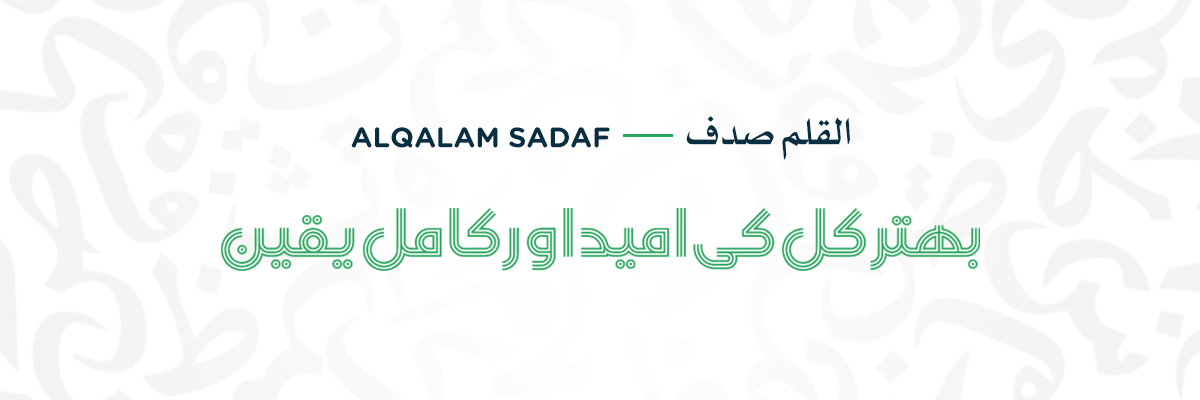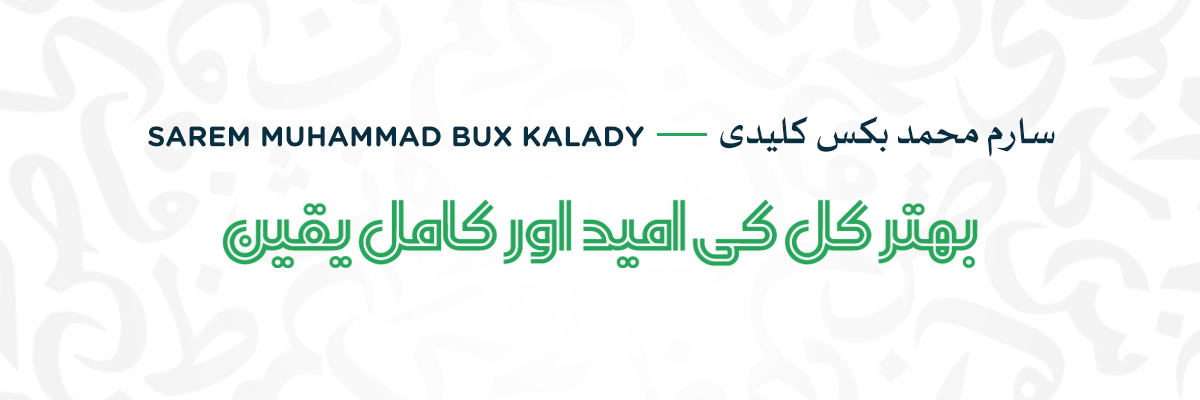
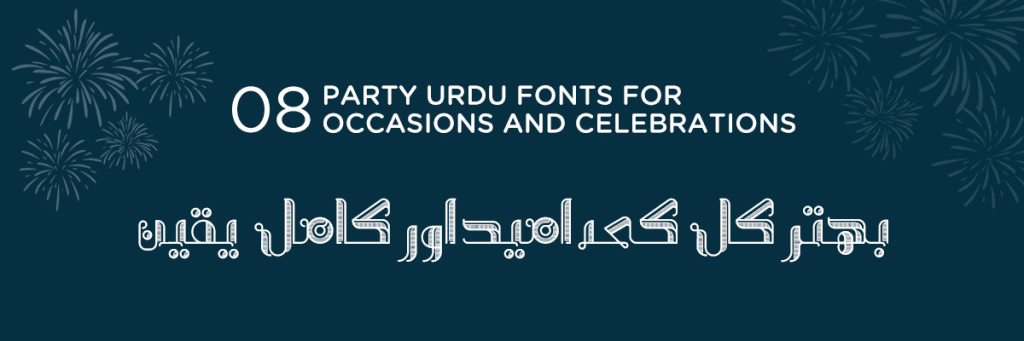
Isn’t it beautiful that just a slightest thing can change the overall look of your designing projects? For example, just by using the right Urdu fonts while designing invitation cards, occasions and celebrations, you can make it look elegant and amazing. For your special events invitation, party Urdu Fonts are the best option. These fonts have a decorative as well as cursive or curly pattern that add a modern and sophisticated touch. Furthermore, the main purpose of using these fonts is all about adding an amusing and festivity touch to your texts. They are often cartoonish or hand-written, with very bouncy characters as well as lively colors. That’s why they are best for kids’ birthday invitations, parties, or any celebrations with a cheerful feel. Below, we will discuss some of the best party Urdu fonts in detail which will help you to choose one for your invitations. However, you can also look into Fancy Urdu Fonts to add an artistic appeal to your typographic design.
As we have discussed above, these fonts look like sophisticated or innovative, adding a customized touch to your texts. You can use them for decorations, invitations, or making a signature style for any special event. With too many Urdu fonts available, it may become difficult for you to select one. Here is a list of best party Urdu fonts for you:
| No. | Font Name | Font Designer | Font Features |
|---|---|---|---|
| 1 | Sarem Abdullah | Sanaullah Mangnejo Sarem | Geometric strokes, Condensed font |
| 2 | AlQalam Sadaf | Syed Shakir Ul Qadree | Decorative Urdu font, geometric shapes |
| 3 | Sarem Muhammad Bux Kalady | Sanaullah Mangnejo Sarem | Hollow letters, open edges |
| 4 | Maze Font 2 | Mohammed Abd El Khalik | Modern Arabic font, trendy look |
| 5 | Sarem Naseer | Sanaullah Mangnejo Sarem | Stencil hollow appearance |
| 6 | Kamva | Atiyeh Kamjo | Uneven strokes, curved edges |
| 7 | AlQalam Irzan | Muhammad Ishtiaq Ali Attari | Constant strokes, equally spaced |
| 8 | Sarem Abdul Latif Ansari | Sanaullah Mangnejo Sarem | Varying thicknesses, decorative |
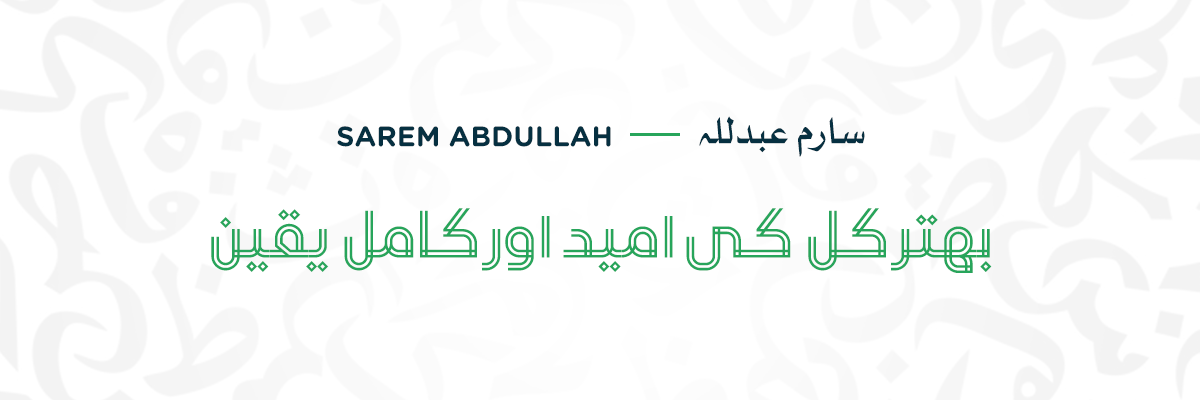
A Sindhi font, Sarem Abdullah is one of the best fonts to be used for different creative projects. It is a condensed font with geometric strokes, making it perfect for writing titles on your special events. With a Middle Eastern style, it is suitable for Urdu, Persian, Arabic, Sindhi, and even Pushto languages. However, it is not appropriate for longer texts. You can download this from reliable sources. Available in a medium font weight, the font needs permission from the creator for commercial use.
Another party font, AlQalam Sadaf was created by Syed Shakir Ul Qadree. It is a quite famous and decorative Urdu font popular for its clean-cut as well as geometric shapes. It is especially used for titles, invitation cards, and other graphic design elements because of its beautiful and impactful look. The font likewise has an even stroke thickness, making it legible to read even if you look from a distance. The stylish appearance of this font adds a very modern touch in your celebrations and events. This is what makes this party Urdu font stands out from others. Also check out our Elegant Urdu Fonts to make your designs more artistic.
A Sindhi font, Sarem Muhammad Bux Kalady was designed by Sanaullah Mangnejo Sarem under the trademark of Ayesha Graphics. With hollow letters as well as open edges it is a stencil styled outline font with very highly legibility or readability. You can get this font in medium weight as it is a good option for writing headings and creating brochures and posters for your events. However, it is not appropriate to use for longer texts because of its widely spaced characters.
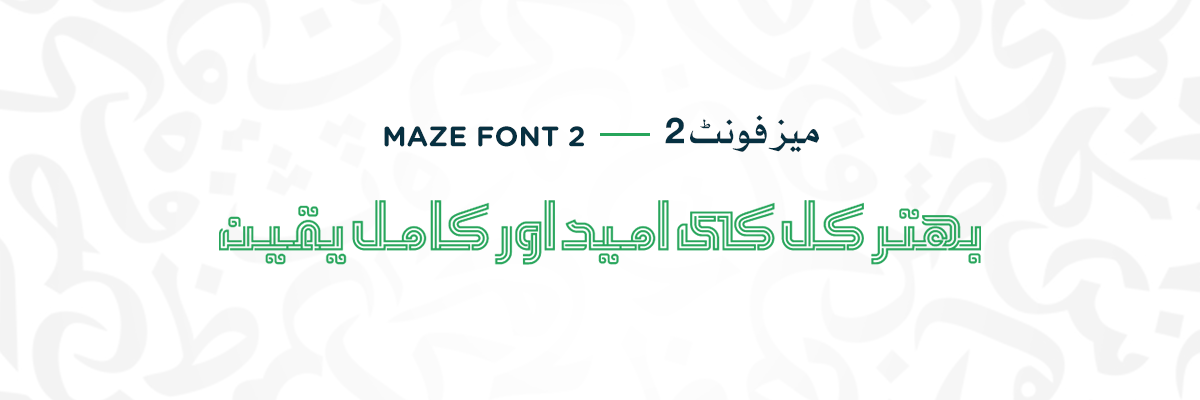
A modern Arabic font Maze font 2 was designed by Mohammed Abd El Khalik. The font was launched under the trademark of Behance.net in 2016. It has very futuristic look, making it appropriate for different designing projects. With intricate letterforms as well as changing thickness & spacing, it attracts the attention of many people. The entire design of this font is inspired by a labyrinth, with every one of its characters made up of 3 parallel lines. Furthermore, gaps between the characters lines give the font a very clean and uniform appearance.
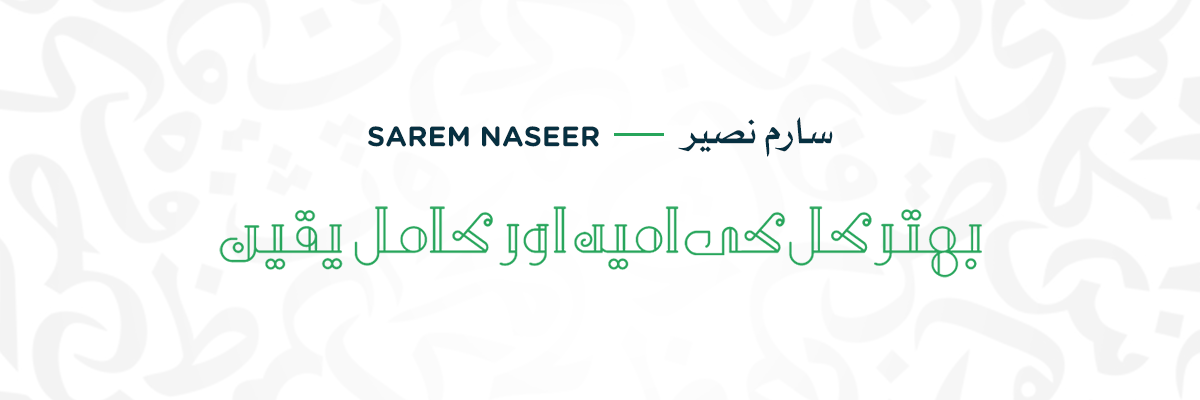
Designed by Sanaullah Mangnejo Sarem, Sarem Naseer is a TrueType Sindhi font. With a regular stencil hollow appearance, the font is inspired by the traditional Arabic script and is appropriate for many artistic projects like tech designs, posters, and occasions advertisements. It is only available in regular font weight and has high readability. Its characters are made up of half-hollow letters and half-thin lines, giving it a trendy look. The curved lines and rounded terminals give a very versatile overall look.
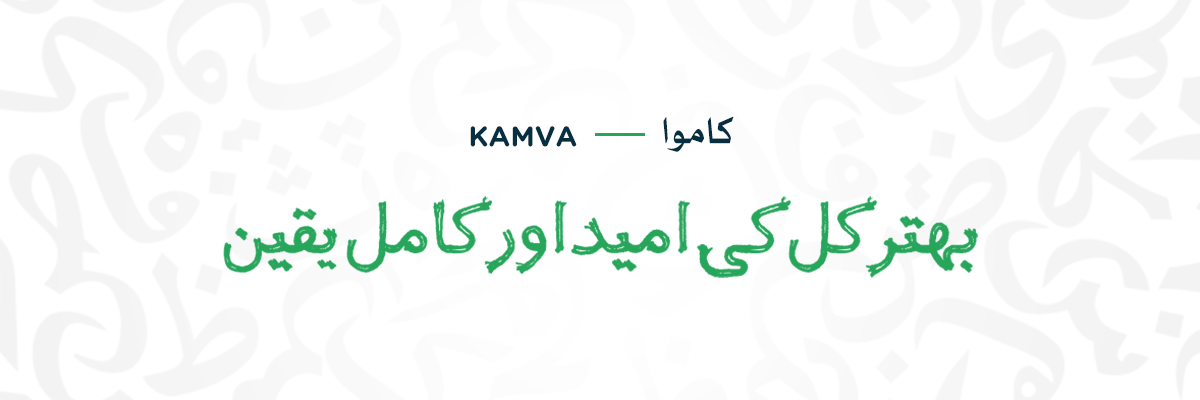
Kamva was made and designed in 2016 by Atiyeh Kamjo. The font has uneven strokes and curved edges and looks like reminiscent of chalk writings on a rough surface. Also, the empty spaces in the typeface provides a natural and hand-written feel. You can use it for many creative projects such as play cards, posters, and children’s parties. Its corners are quite soft as compared to digital fonts. It is only available in normal weight which may restrict its use for longer texts.
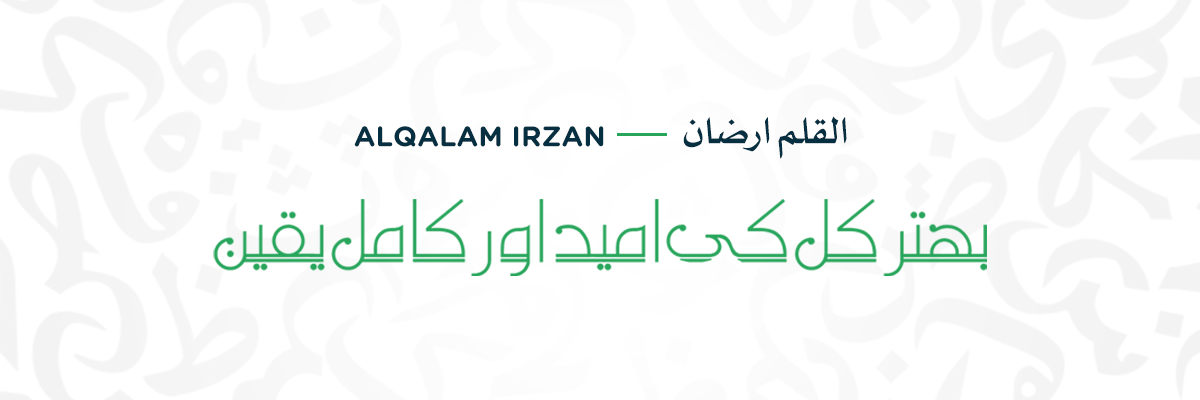
With a classic calligraphic style, AlQalam Irzan is another popular party Urdu font. It has clean, constant strokes that guarantee legibility even at smaller or low-resolution screens. The letters of this fonts are equally spaced, even, and have a thin double line below with pointy corners and curved dots. Moreover, at ends of the strokes, there are serifs that are not only sharp points, rather elegantly extend, improving the visual look to the font. Its flexibility makes it the best option to use for many designing projects to give a stylish look.